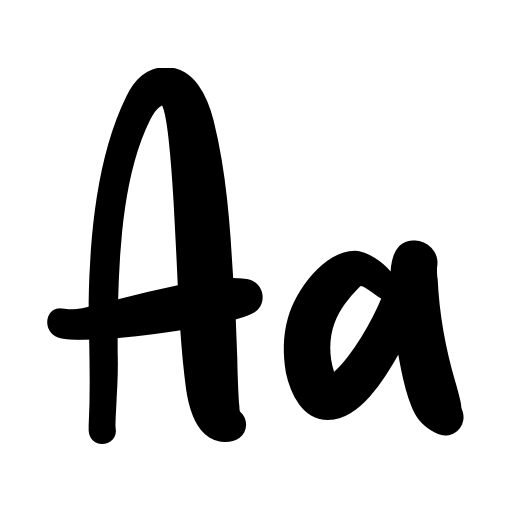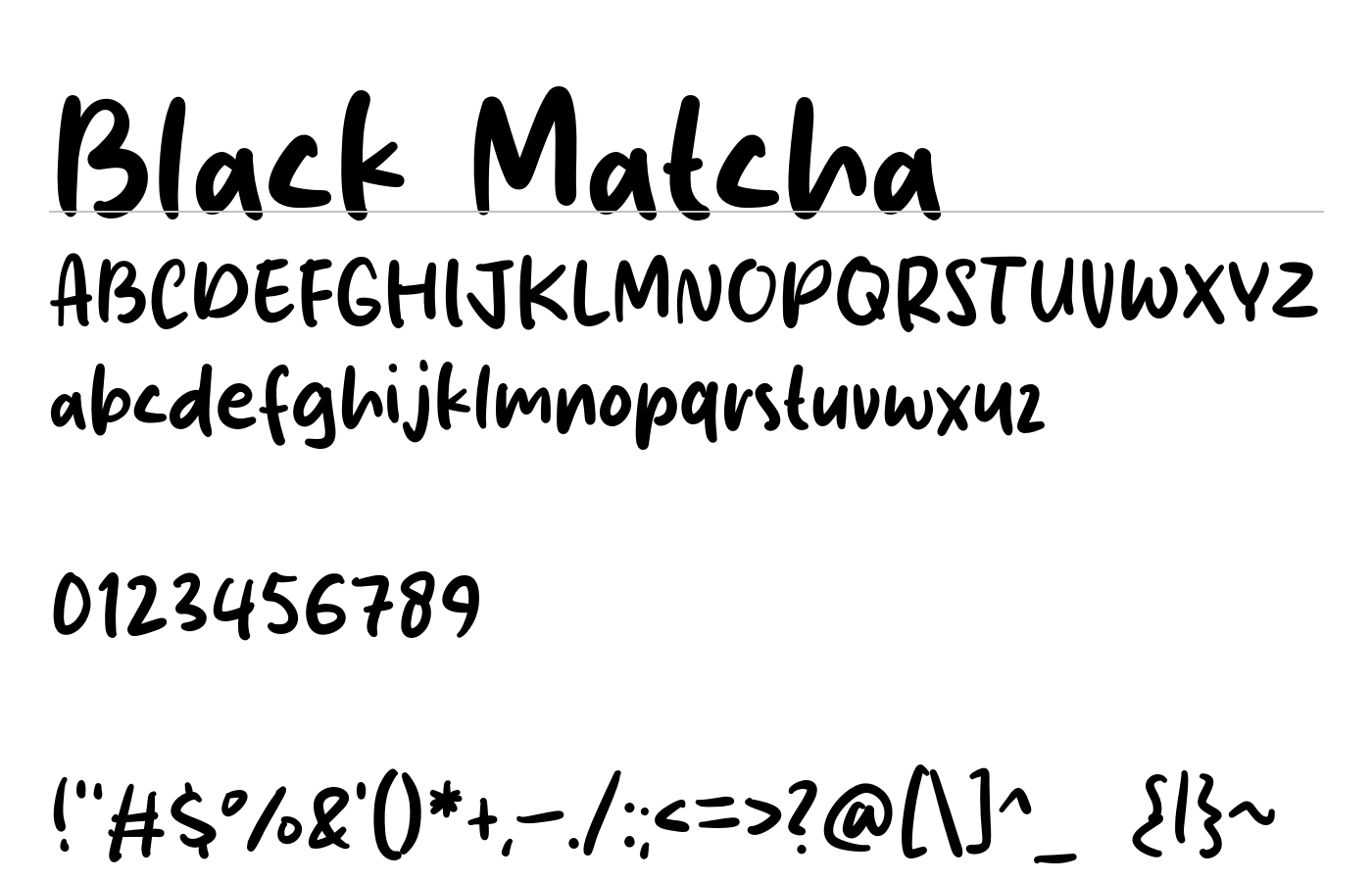
Black Matcha is a playful and friendly handwritten font featuring bold, round strokes that give it a casual, approachable feel. Its moderate x-height and slightly irregular letterforms add personality and warmth, making it ideal for fun branding, informal headlines, and creative projects that want to convey a relaxed and inviting vibe. This font works well in digital and print contexts where a personal, hand-crafted touch is desired.
Black Matcha Font
About Black Matcha Font